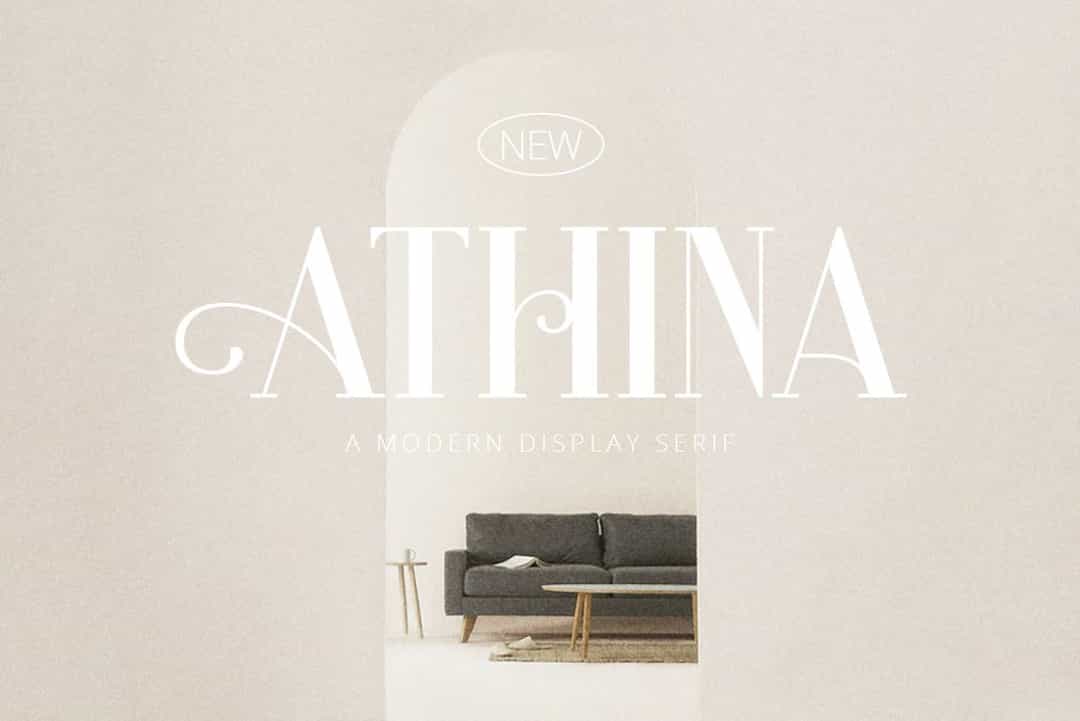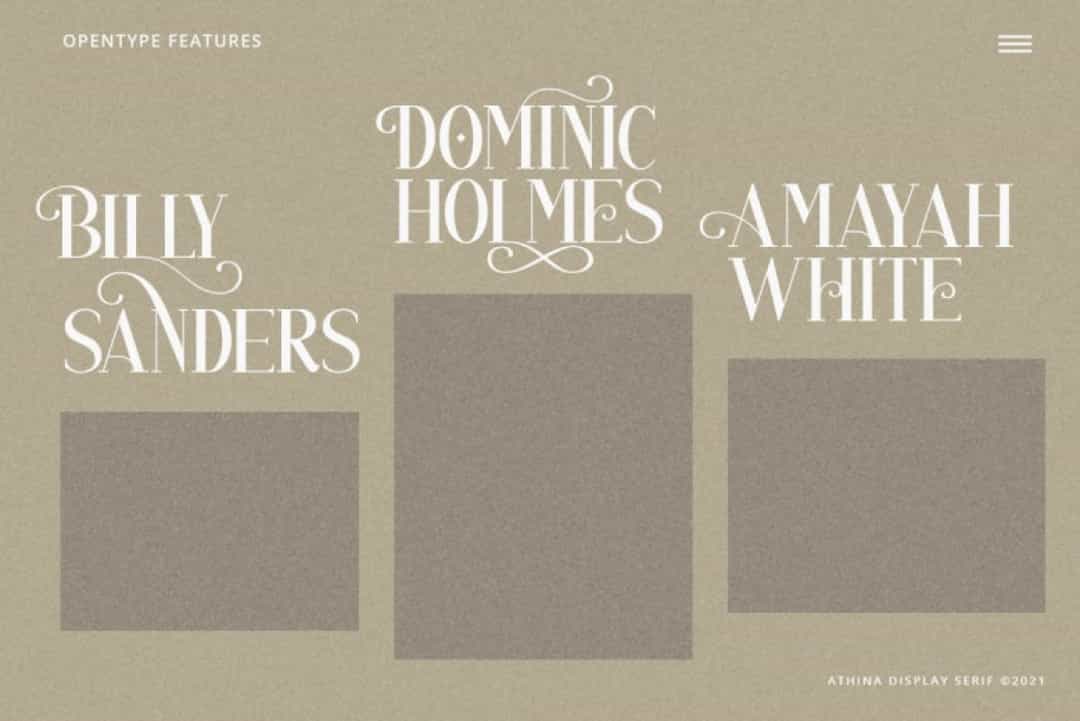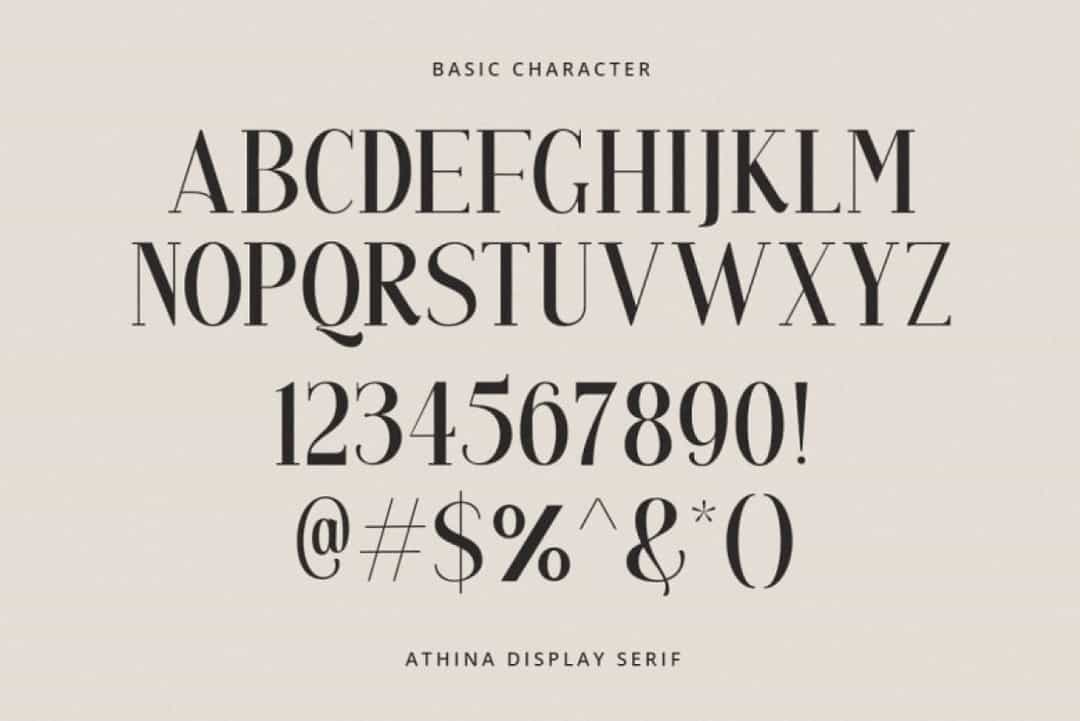
Athina is our latest font release! Athina is an open serif font designed with care to work well in modern and minimalist designs. Additionally, this font includes an eye-catching swash which makes this font truly stand out!